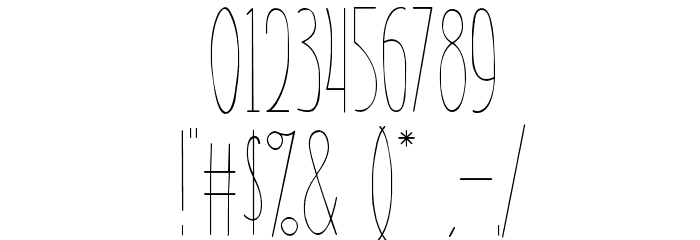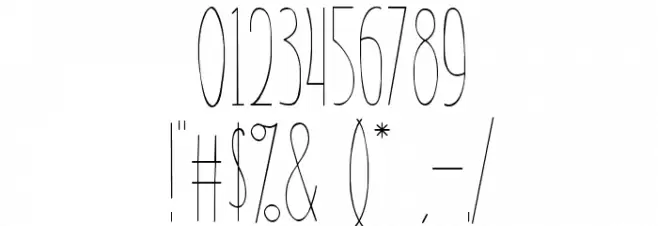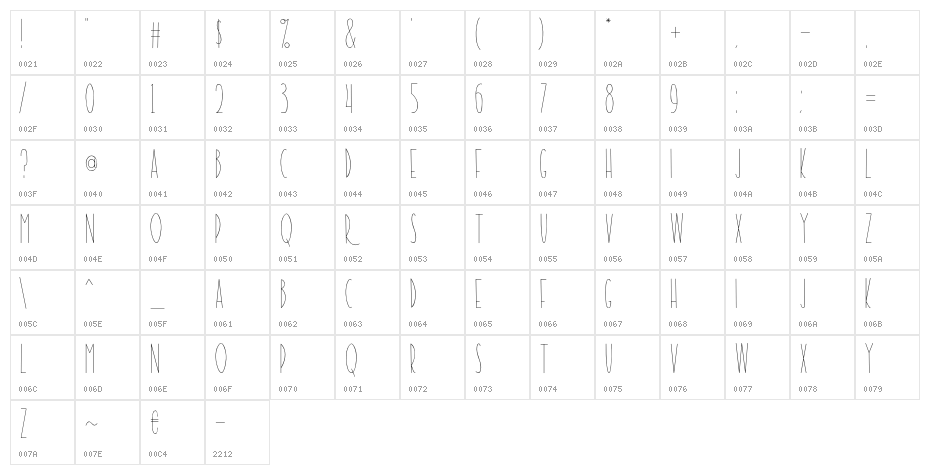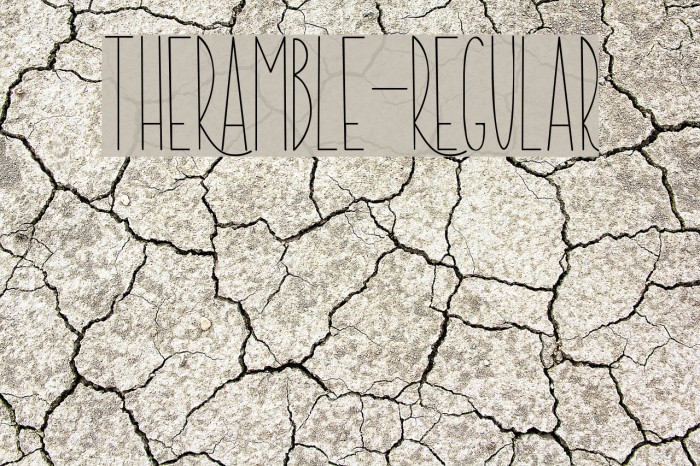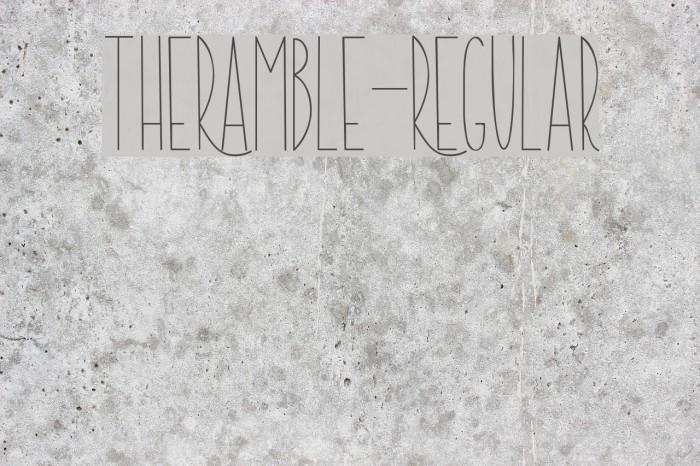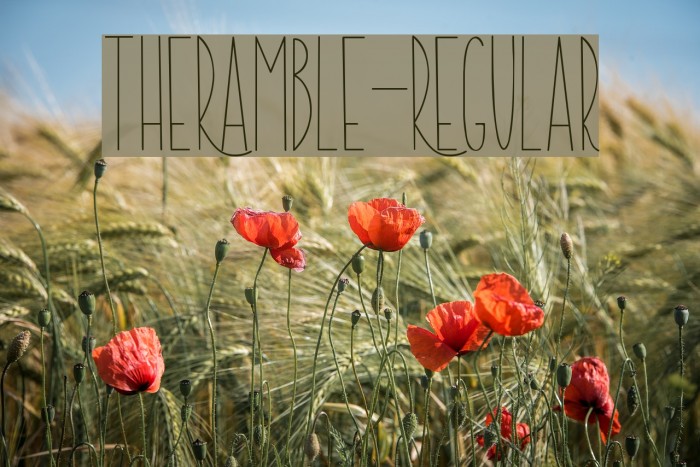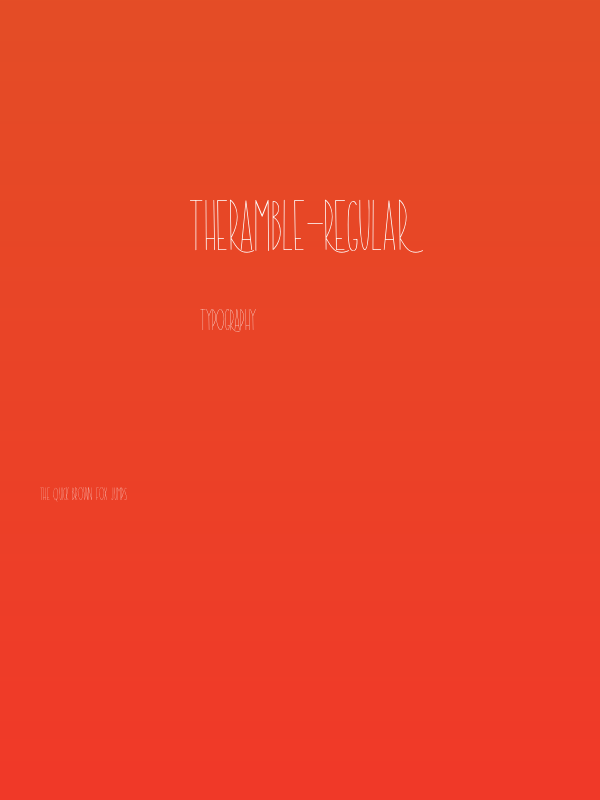
TheRamble-Regular Font
TheRamble-Regular Description
This font features a tall, narrow design with elongated letterforms that give it a distinctive and elegant appearance. The characters are thin and have a consistent stroke width, contributing to a clean and modern aesthetic. The uppercase and lowercase letters maintain a uniform height, enhancing the font's sleek and streamlined look. The numerals and special characters are designed to match the overall style, ensuring a cohesive appearance across all text elements. This font's minimalist design makes it versatile for various applications, while its unique characteristics add a touch of sophistication.